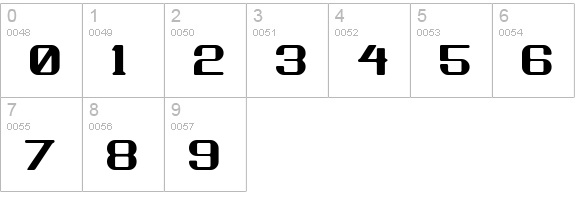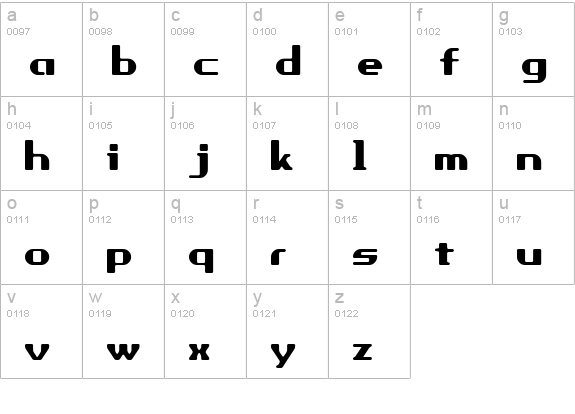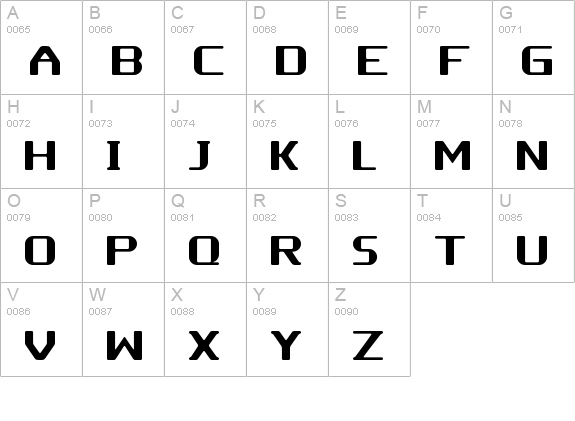
Porhythm Font Details
Porhythm font is a modern and stylish typeface that exudes elegance and sophistication. Its sleek lines and subtle curves make it perfect for a wide range of design projects, from branding to editorial design. The font features a unique blend of classic and contemporary elements, giving it a timeless appeal that will elevate any design it is used in. One of the best things about Porhythm font is that it is available for free download at FontsMarket.com. This means that you can easily access this beautiful typeface and use it in your projects without any cost. Whether you are a professional designer looking for a versatile font to add to your collection, or a hobbyist looking to enhance your creative projects, Porhythm font is a fantastic choice that won't break the bank. With its clean and elegant design, Porhythm font is sure to make a statement in any project. Its versatility and timeless appeal make it a must-have for anyone looking to add a touch of sophistication to their designs. Download Porhythm font for free today at FontsMarket.com and take your design projects to the next level!